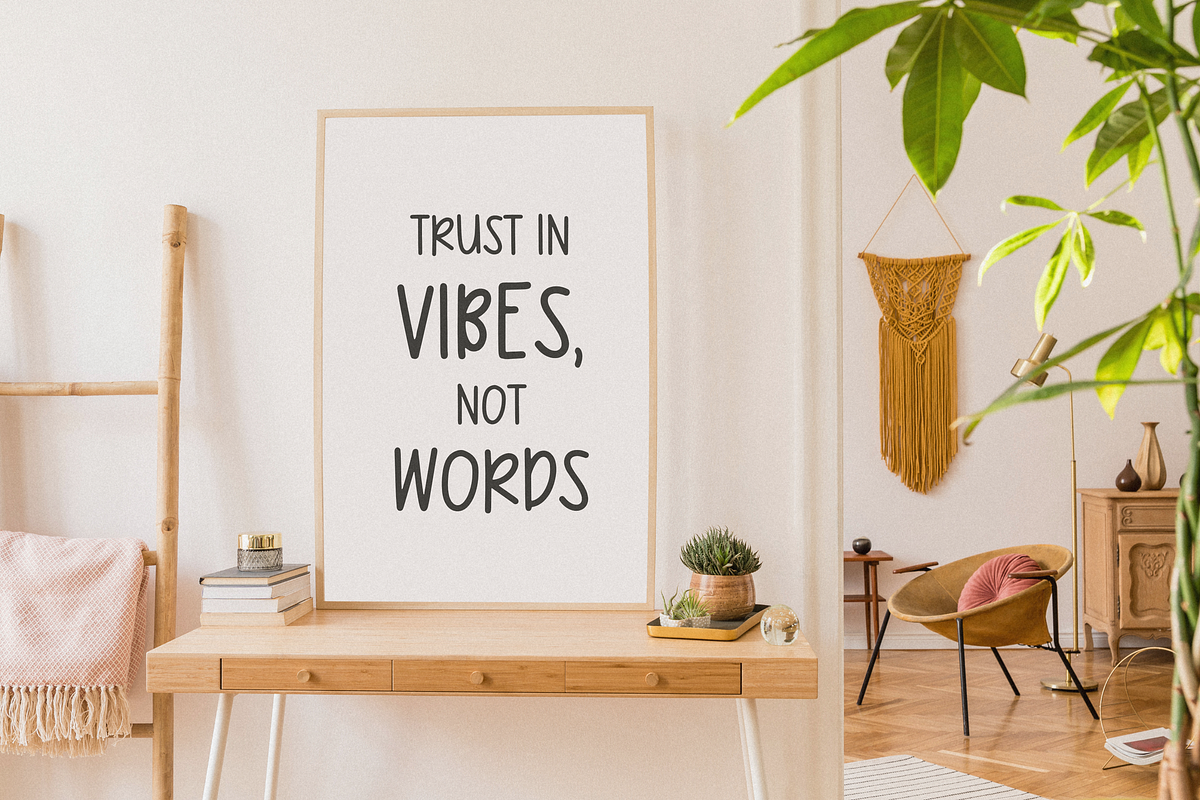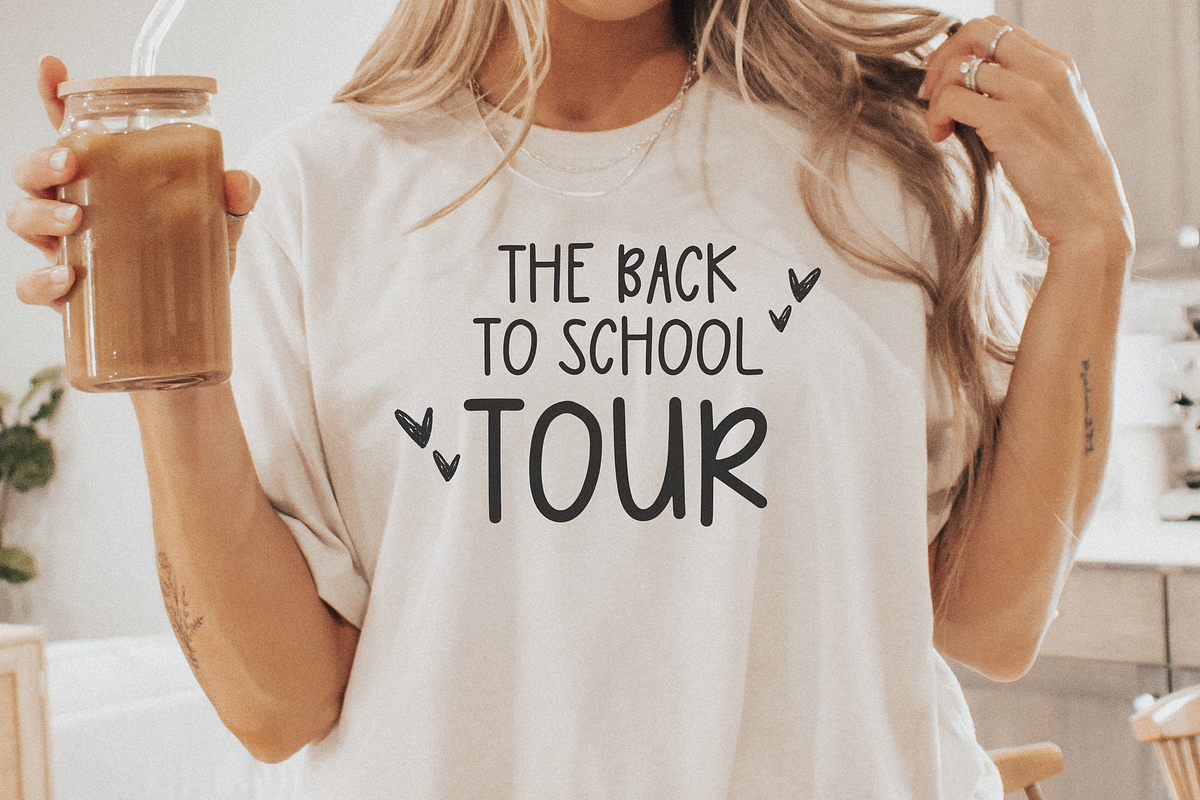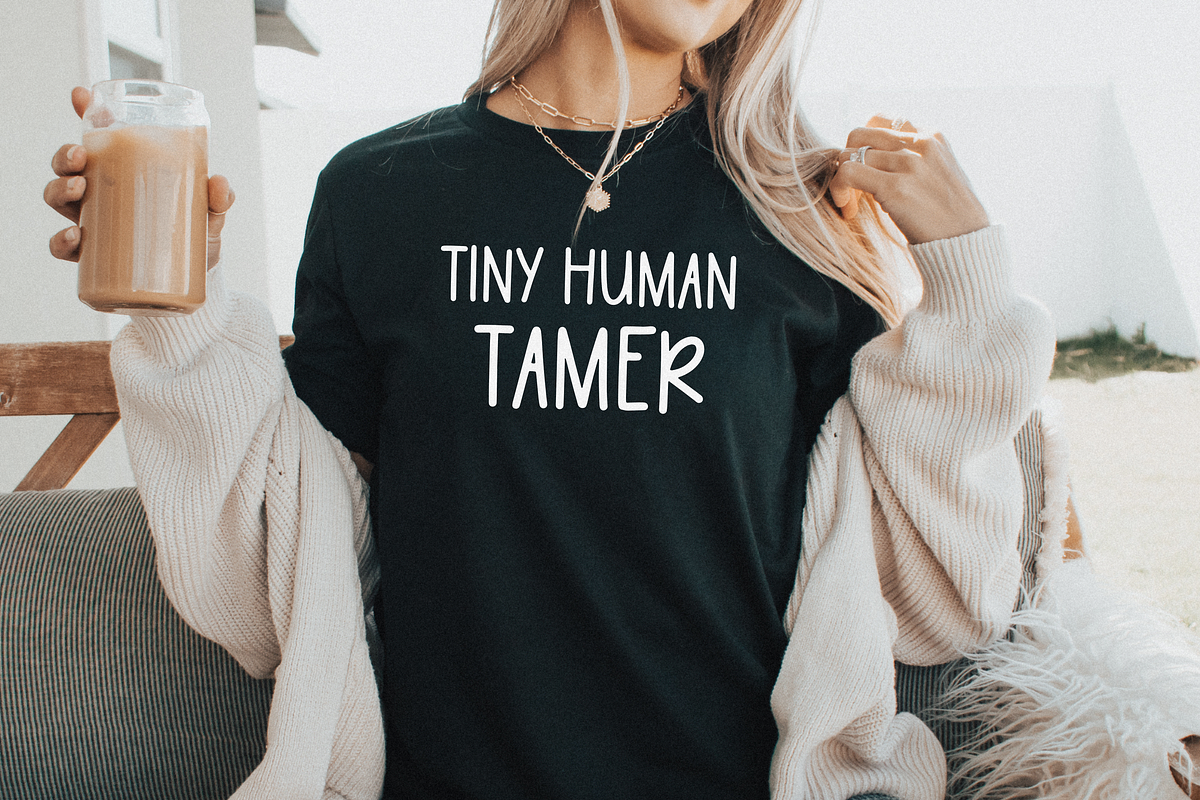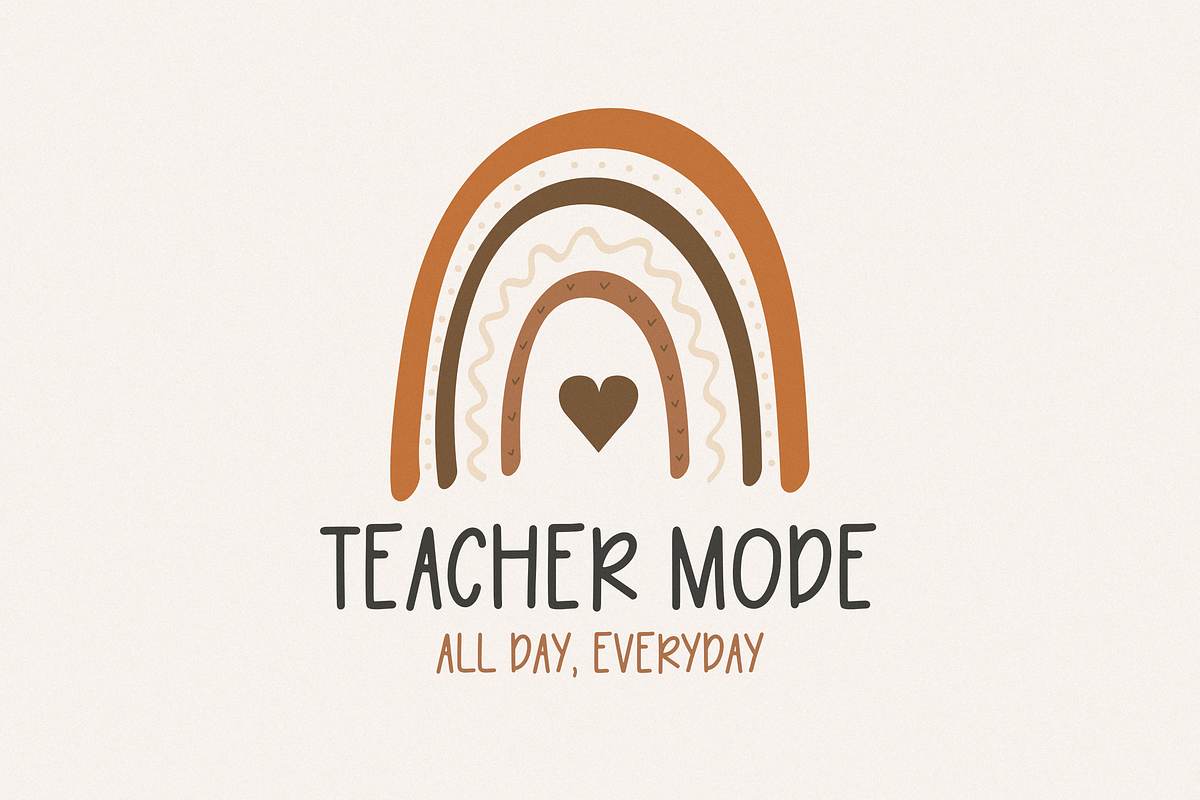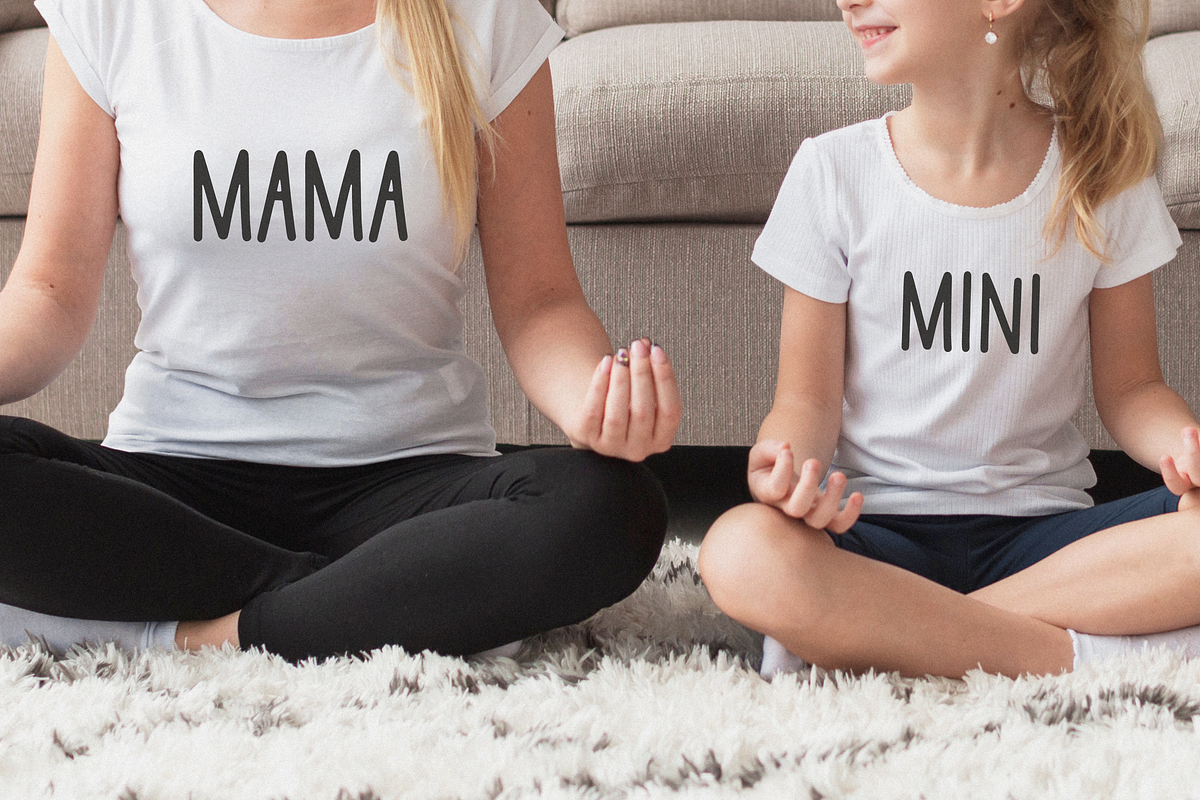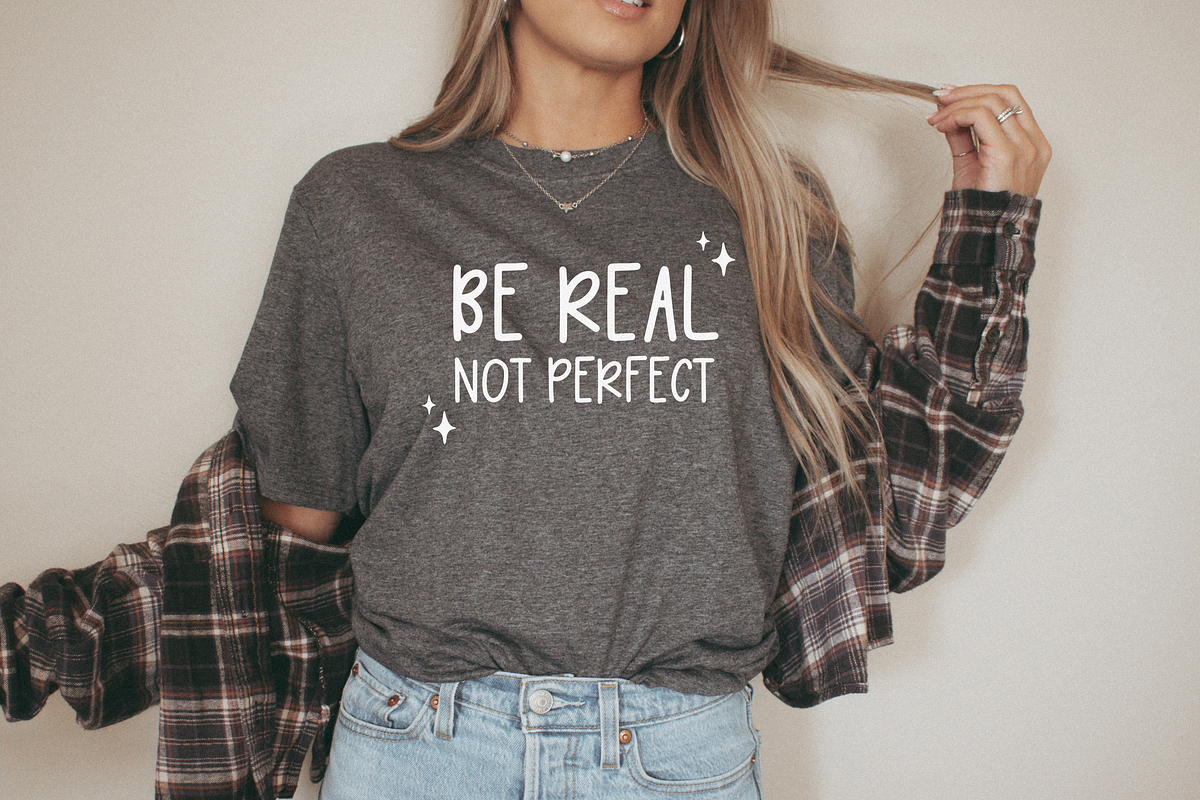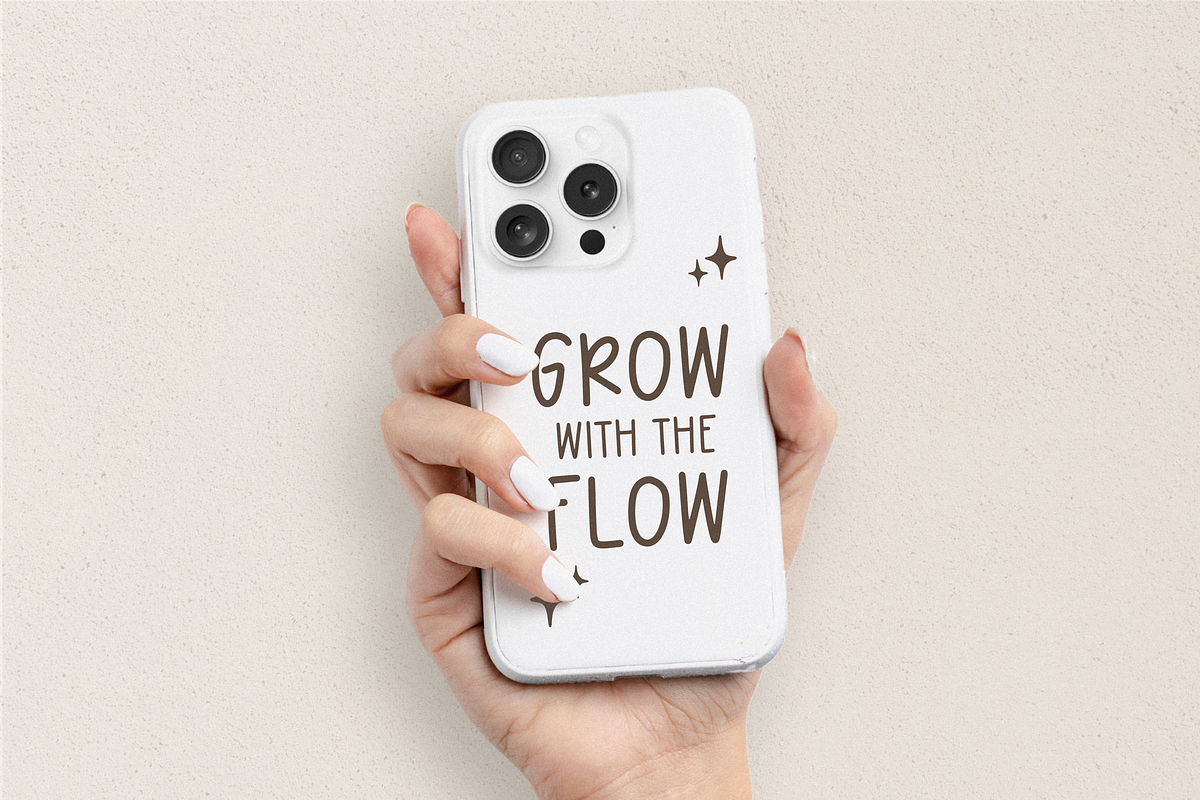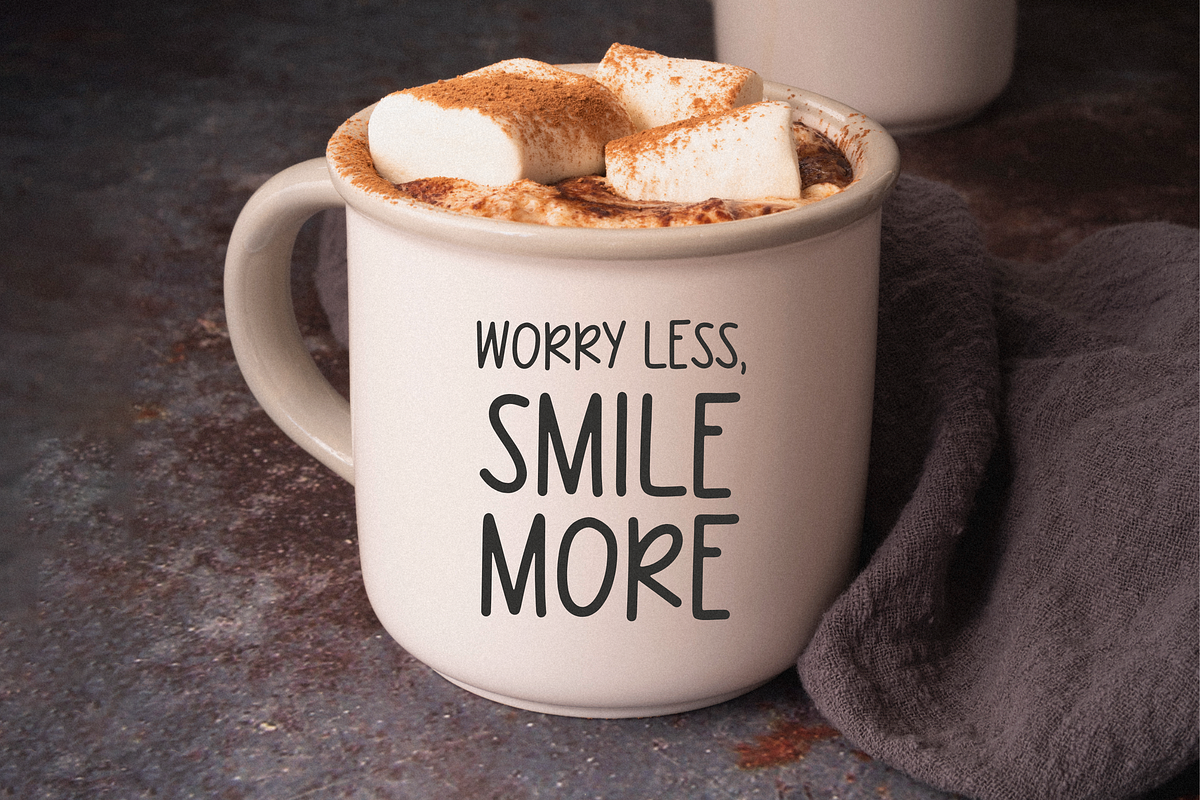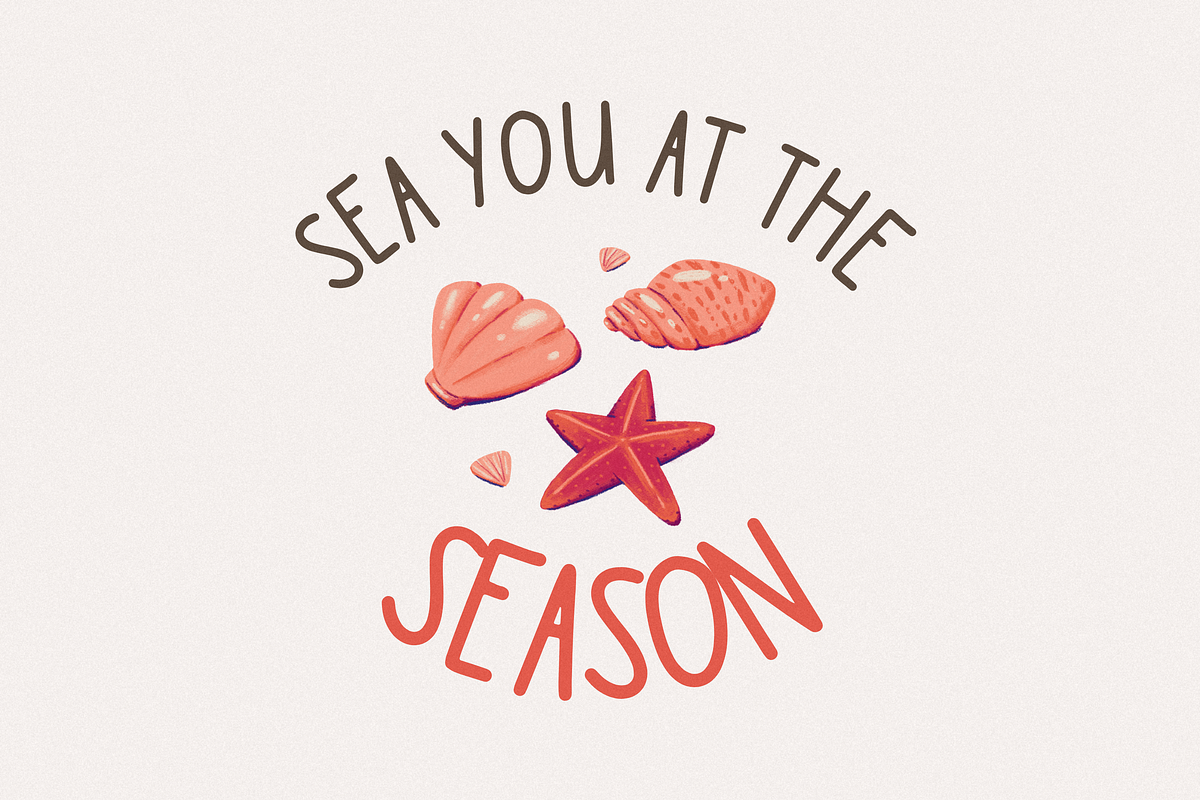
ORANGE BOAT Font
ORANGE BOAT FONT A cute & neat handwritten font. (ALL CAPITAL LETTER)
✦ ORANGE BOAT FONT is perfect for: digital note taking on digital planner, shirts, mugs, invitations, greeting cards, Procreate, Cricut and more!